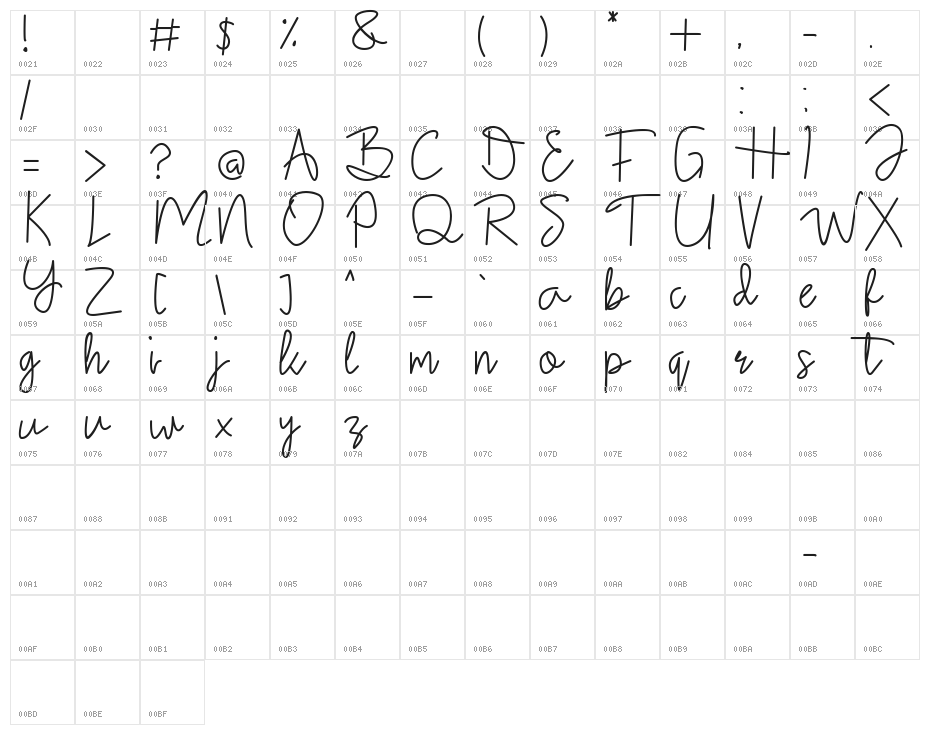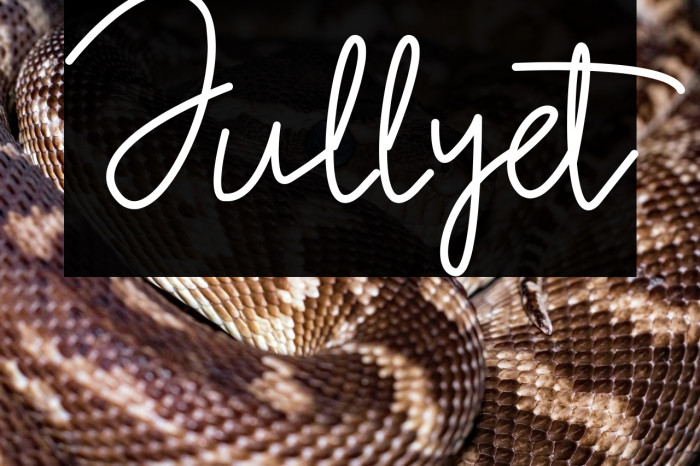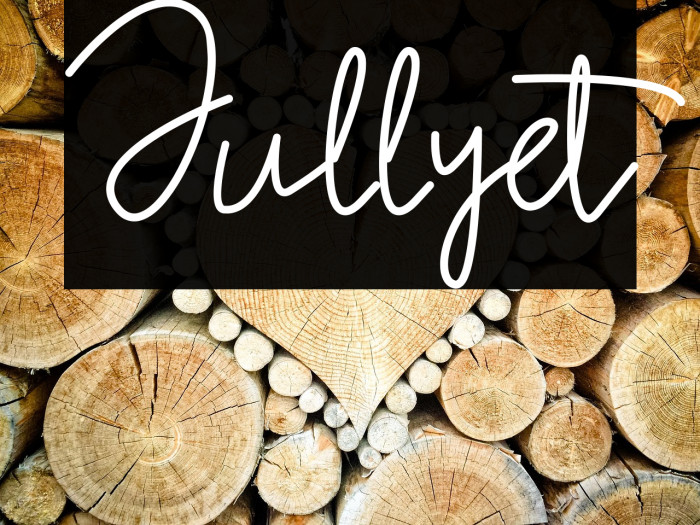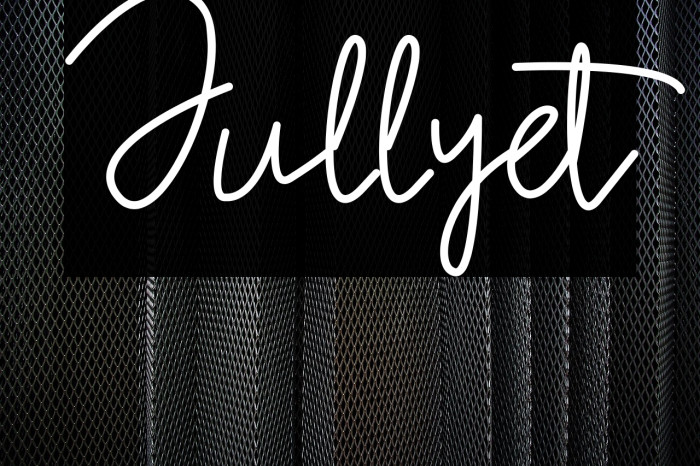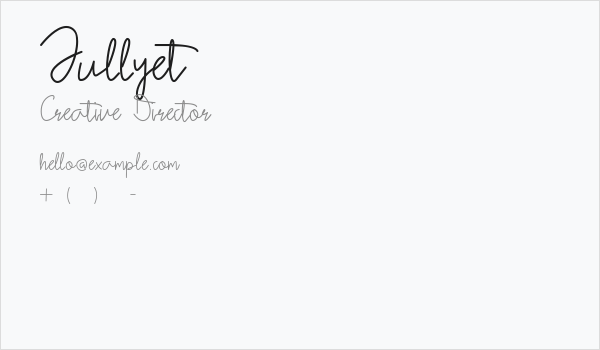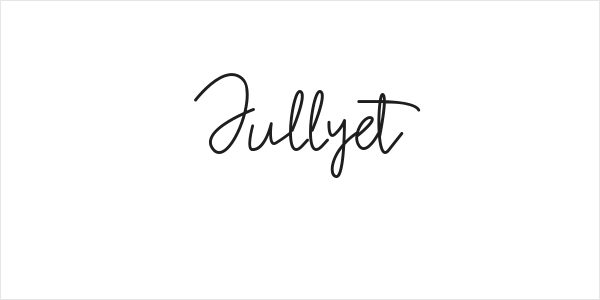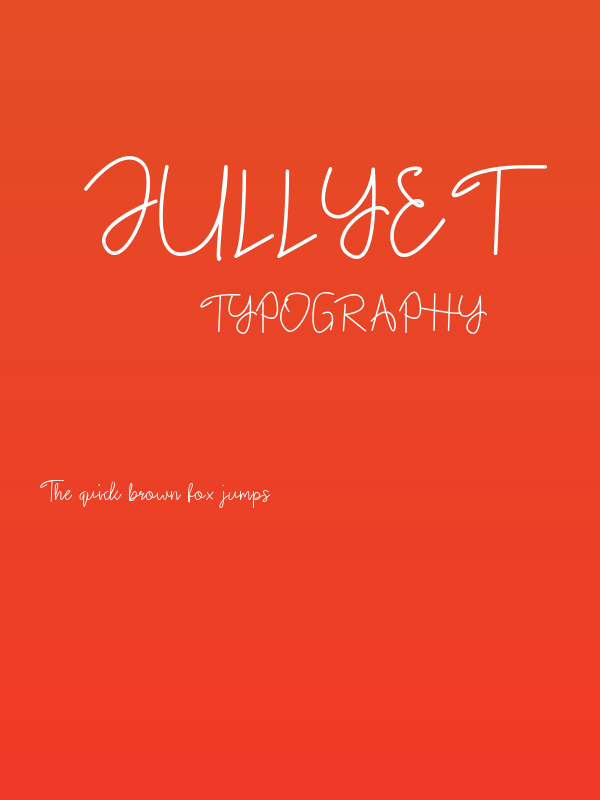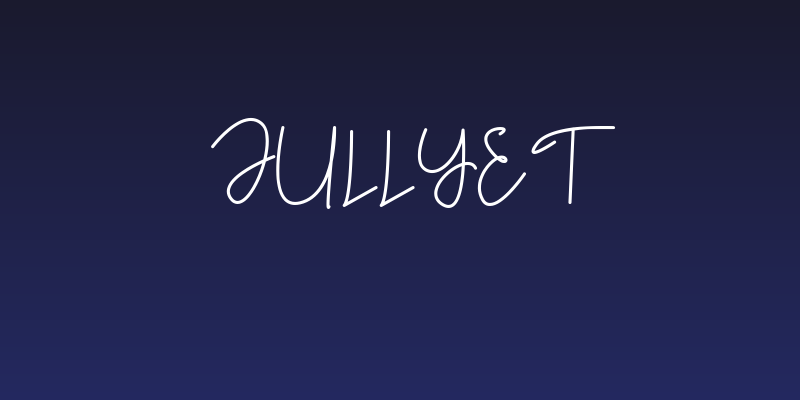
Jullyet Font
Jullyet Description
This font features a playful and elegant script style with a handwritten appearance. The uppercase letters are distinct with a slight slant, while the lowercase letters flow smoothly with connected strokes, giving a cohesive and fluid look. The characters are well-balanced, with a moderate height difference between ascenders and descenders, enhancing readability. The numbers and special characters maintain the same playful style, making them suitable for creative projects. The overall design is modern yet retains a classic charm, making it versatile for various applications.
| Use Case | Logos, Invitations, Social Media |
| Proposed Projects | Ideal for wedding invitations, greeting cards, branding, and social media graphics. |